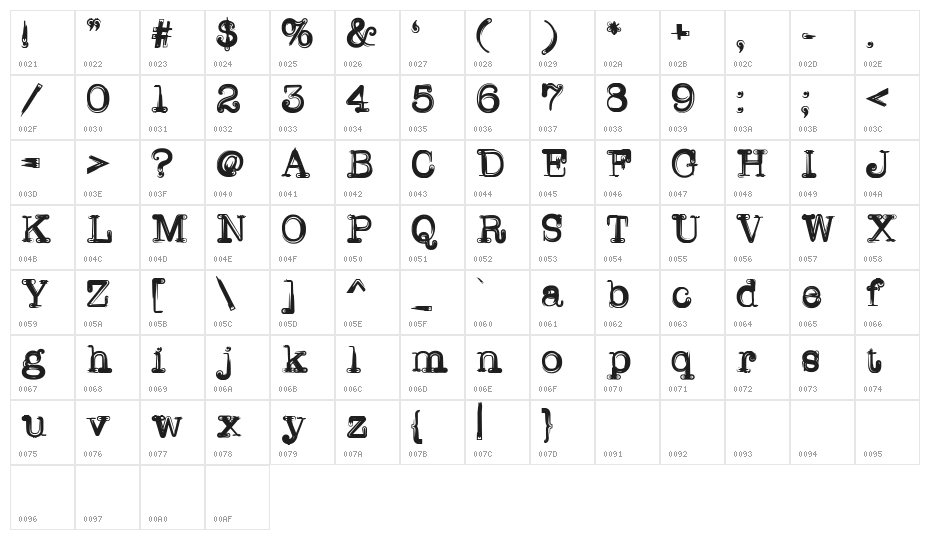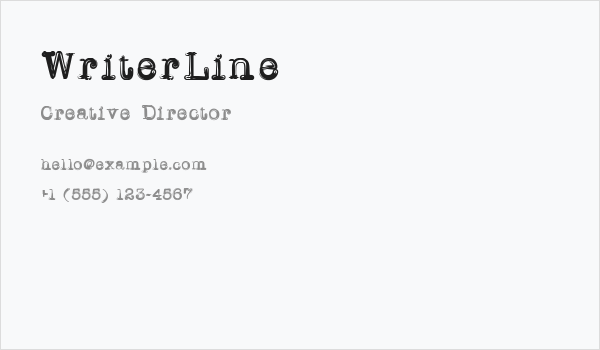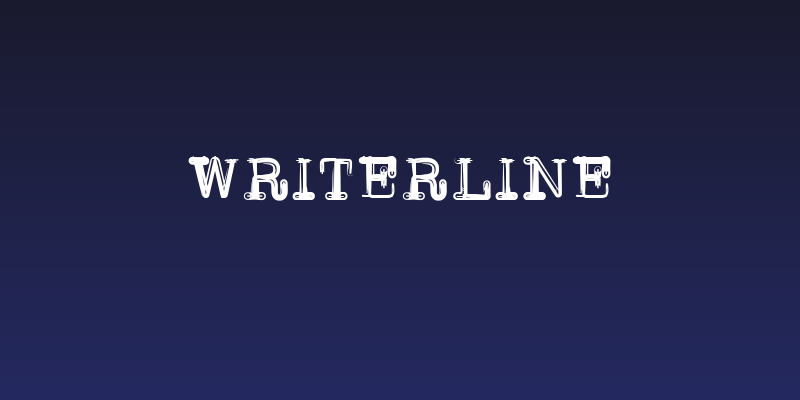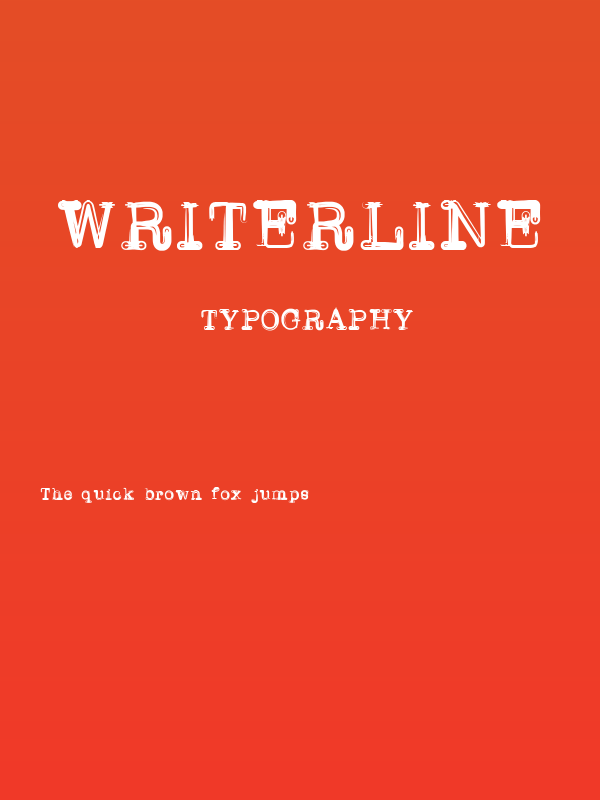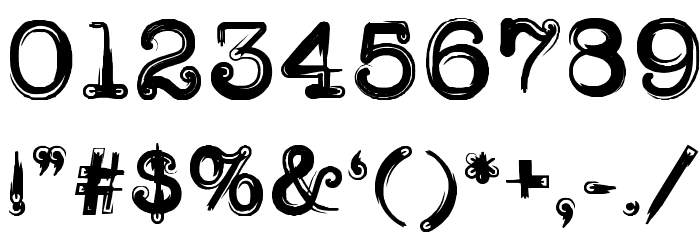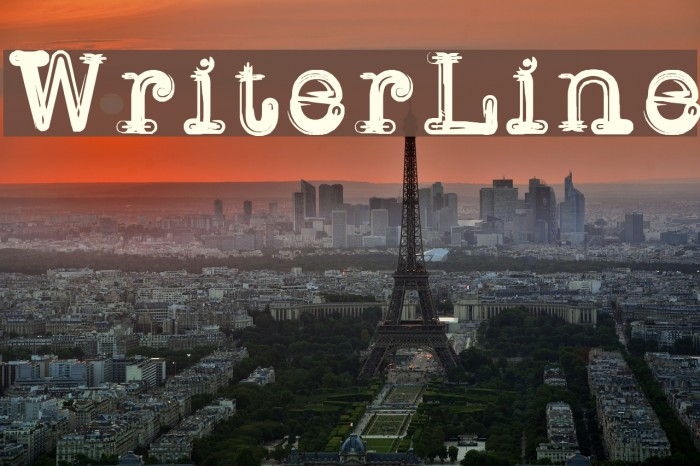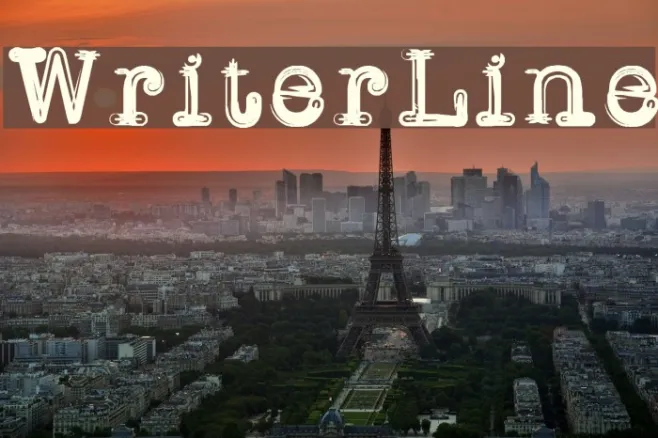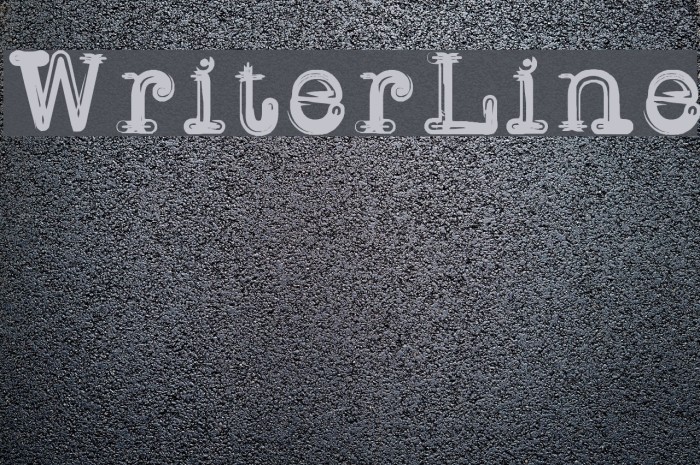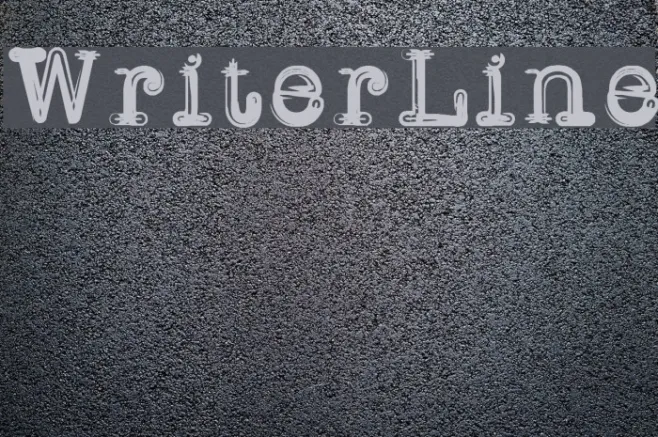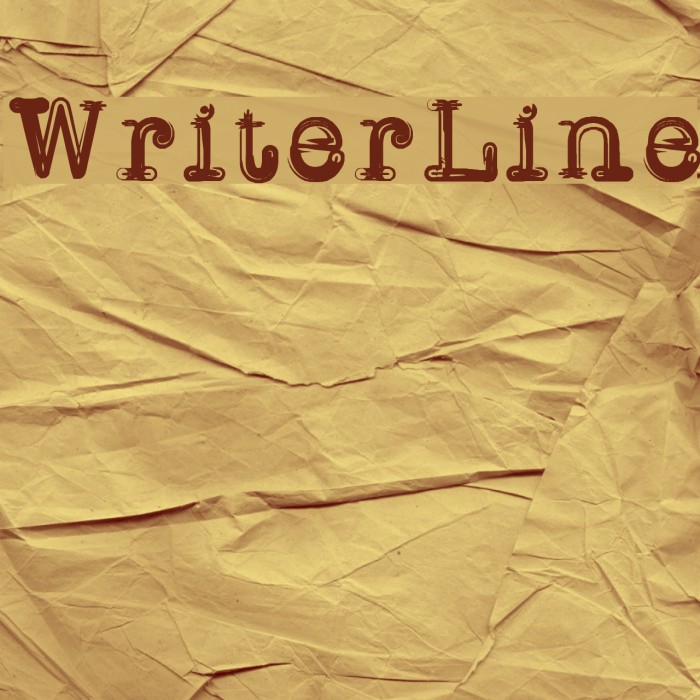
WriterLine Font
WriterLine Description
This font features a unique and decorative style with ornate swirls and embellishments on each character, giving it a whimsical and artistic flair. The uppercase and lowercase letters are consistent in their decorative elements, creating a cohesive look. The numbers and special characters also follow this ornate design, making the font suitable for creative and eye-catching projects. The bold strokes and intricate details make it stand out, while maintaining readability. This font is ideal for projects that require a touch of elegance and creativity.
| Proposed Projects | Ideal for invitations, posters, branding, and any project needing a creative and artistic touch. |